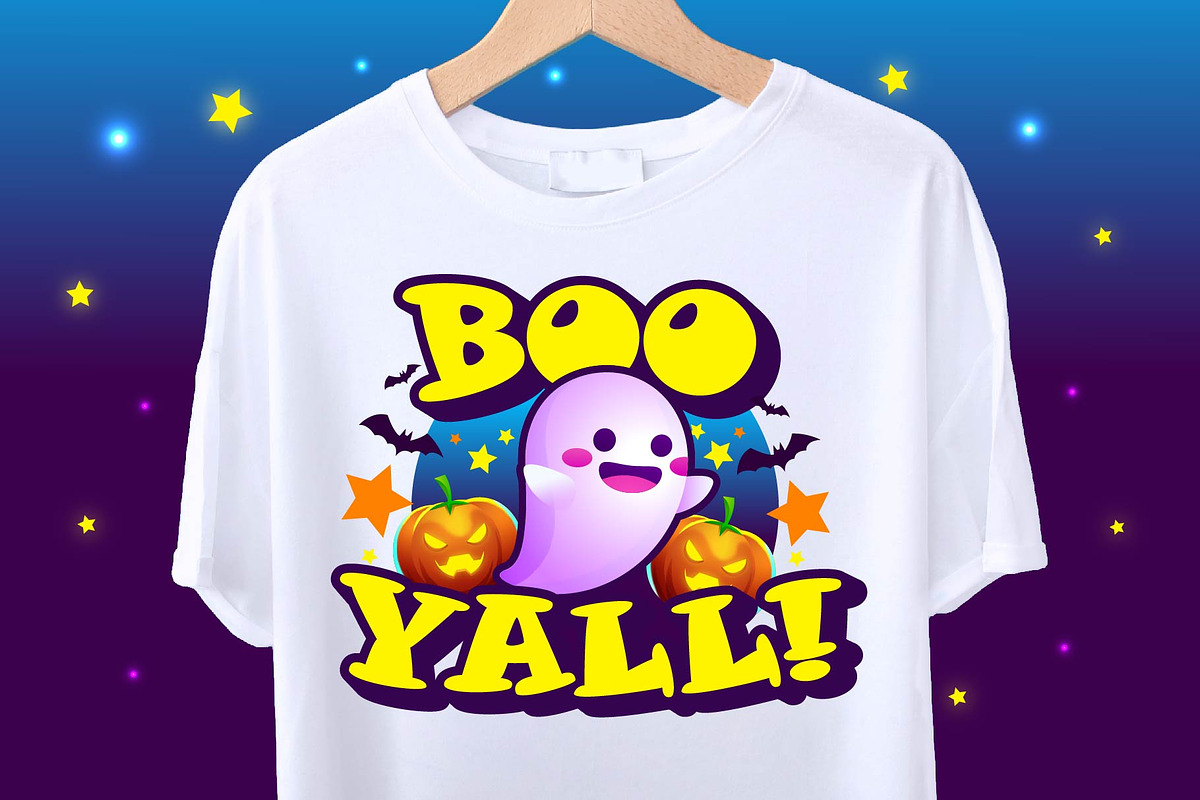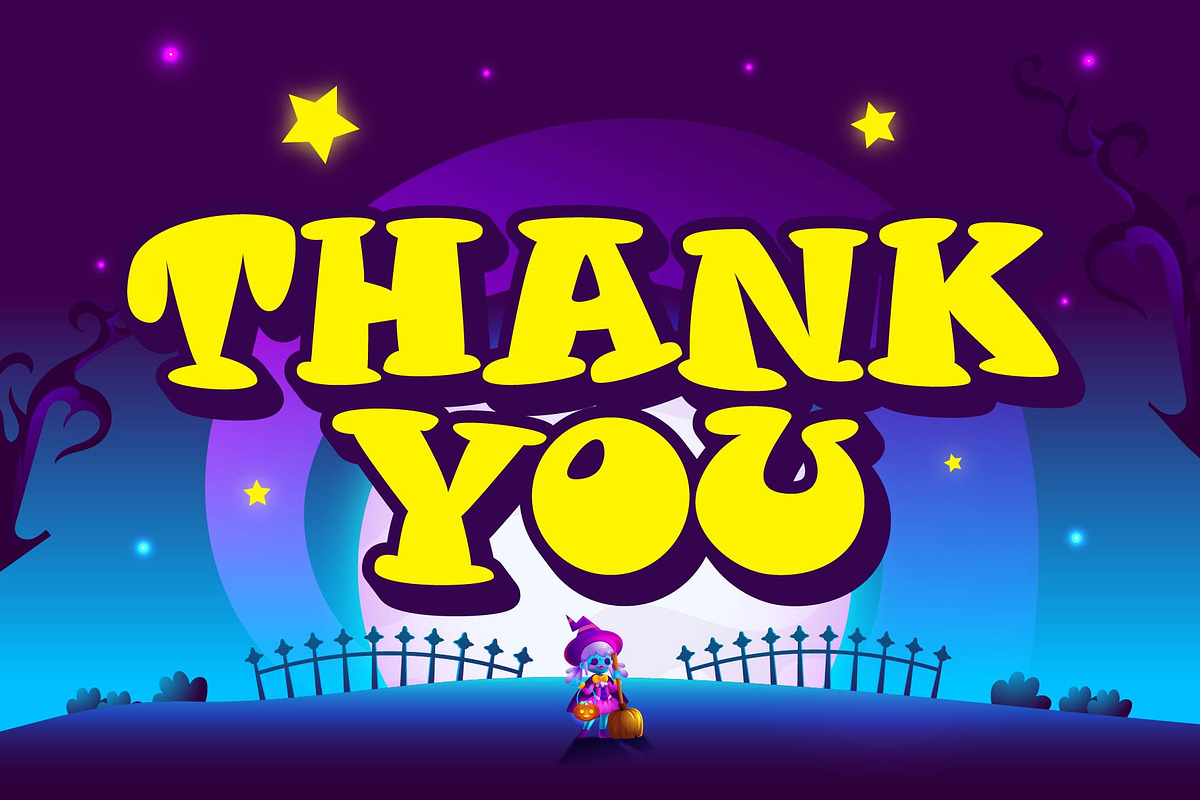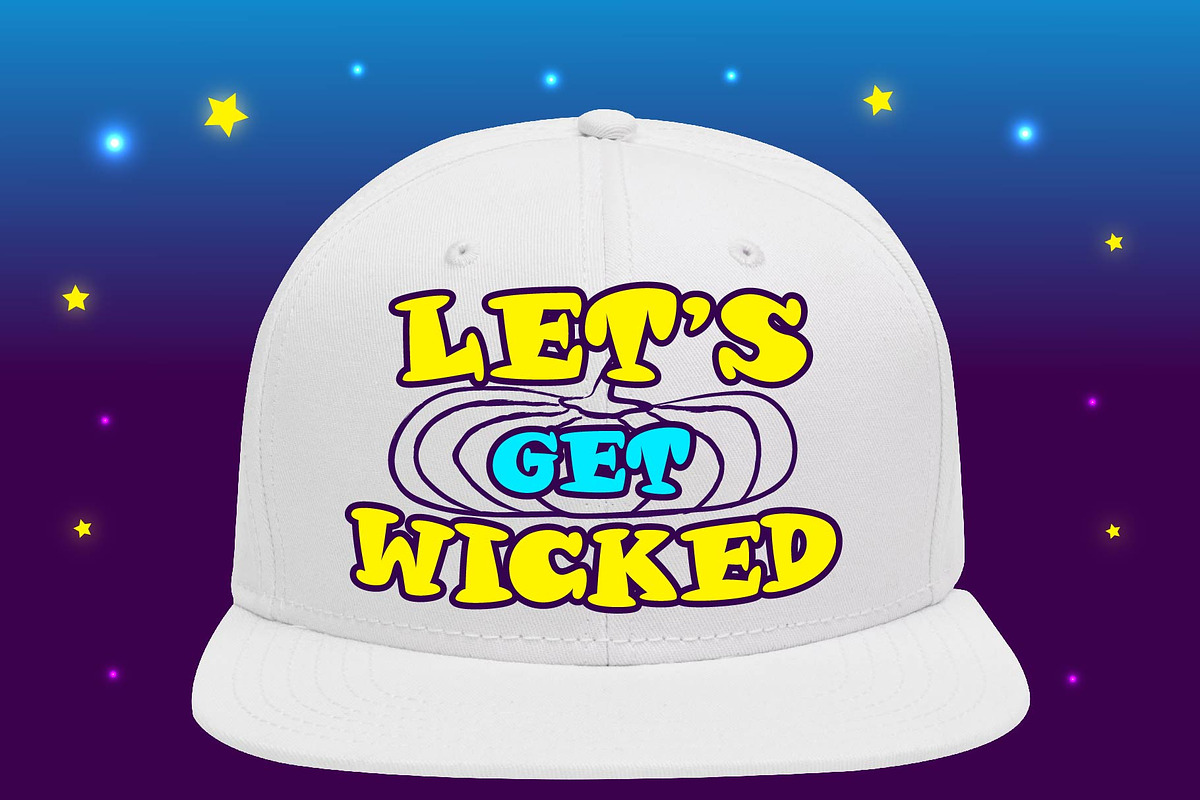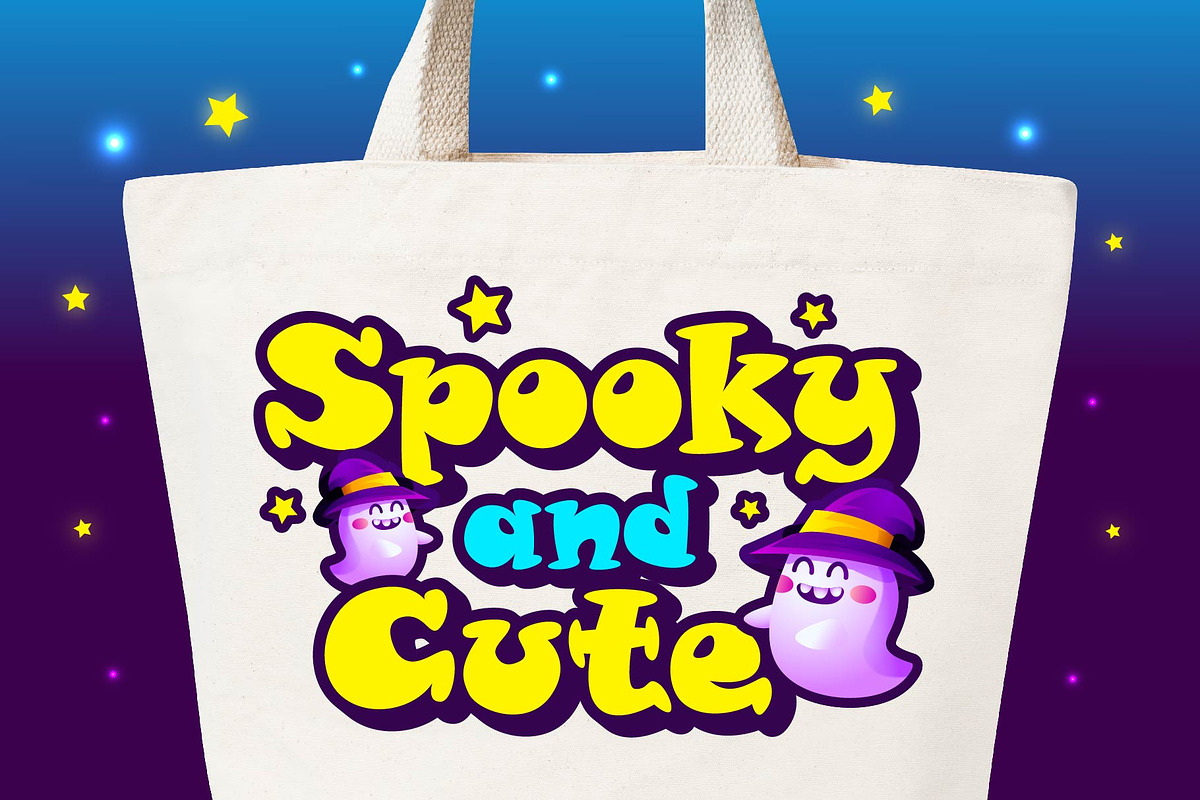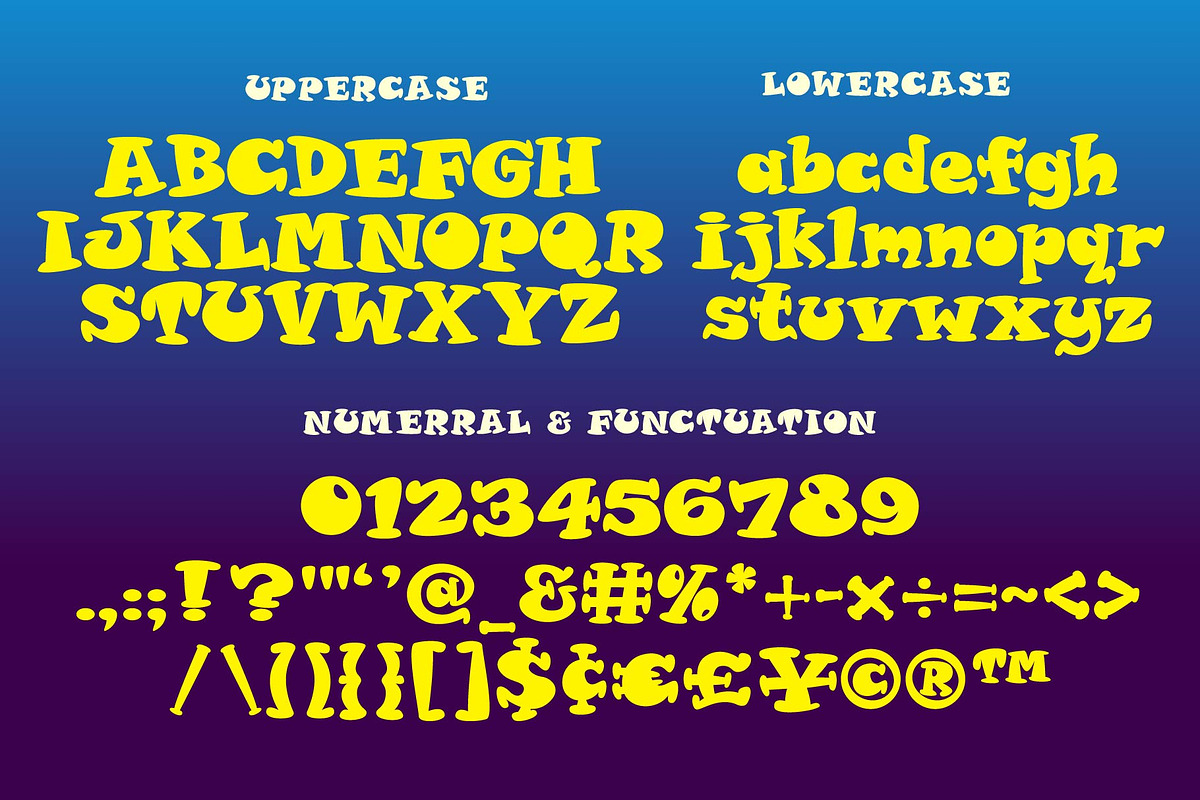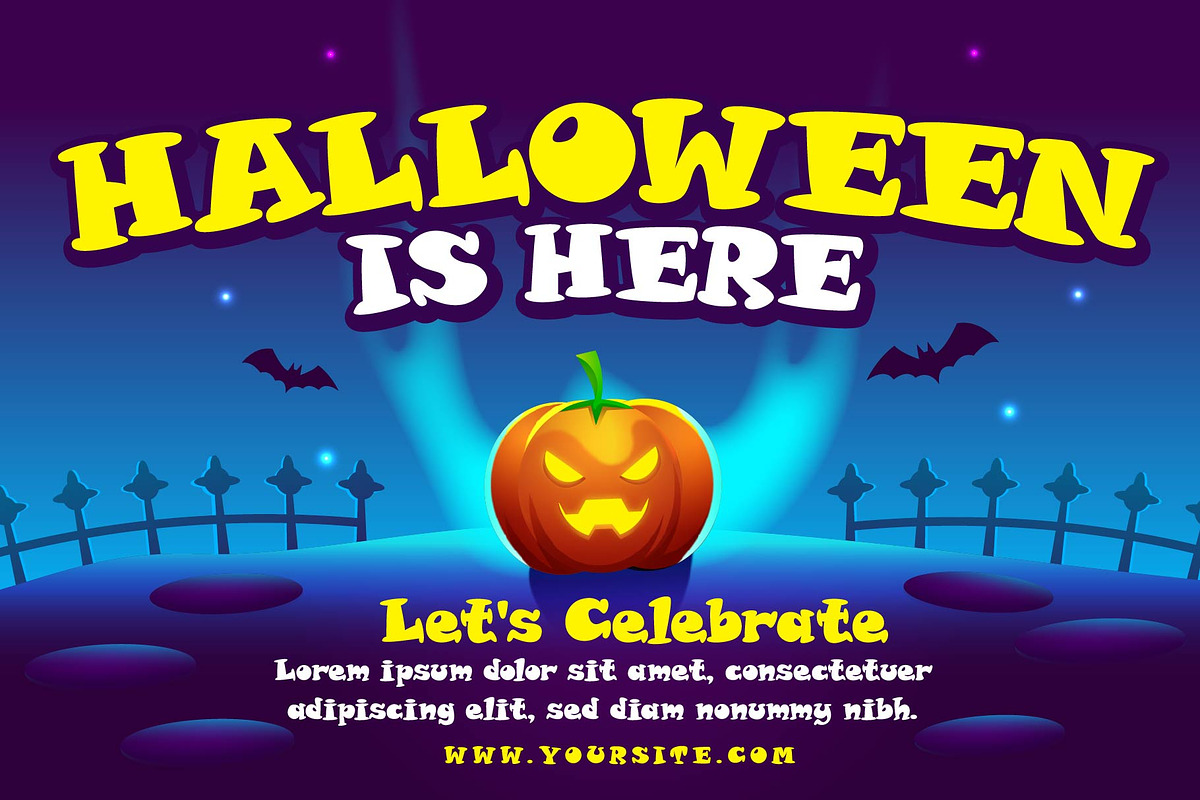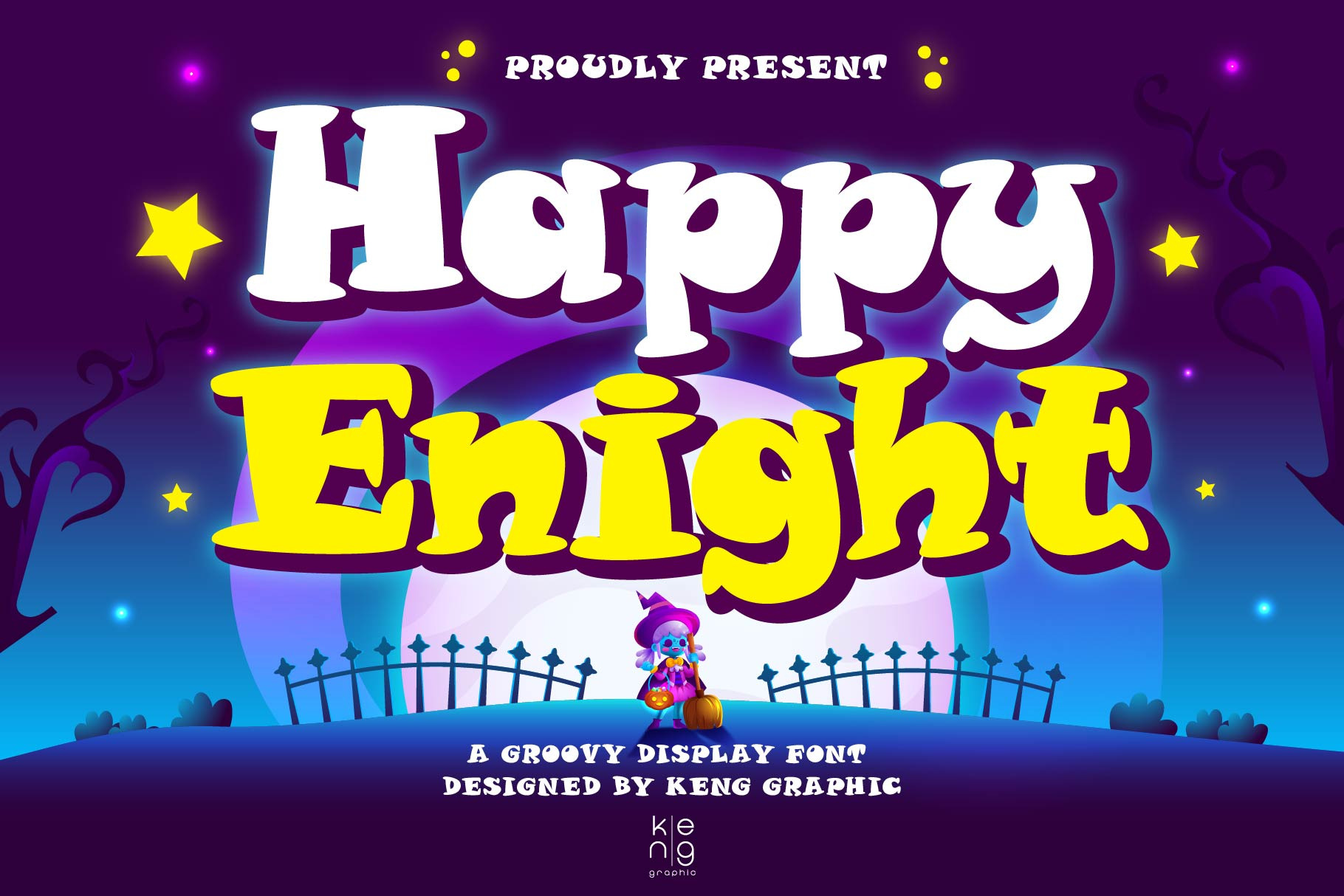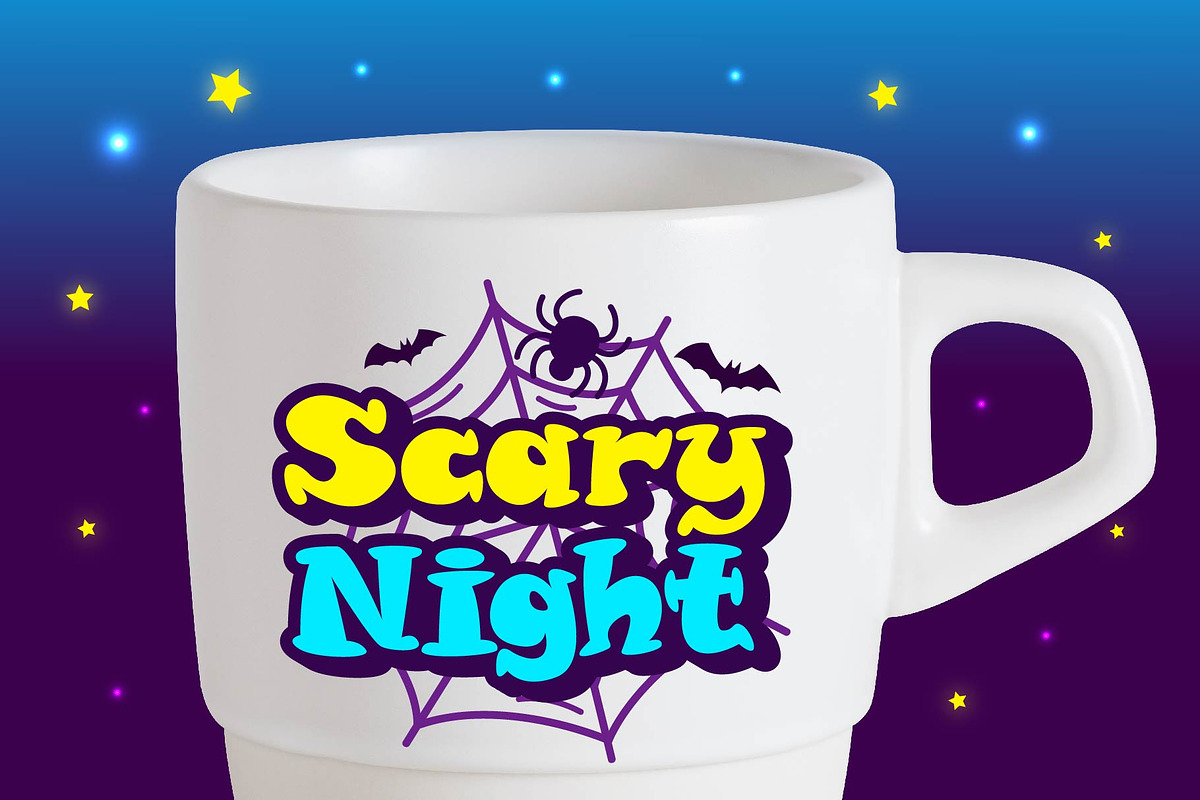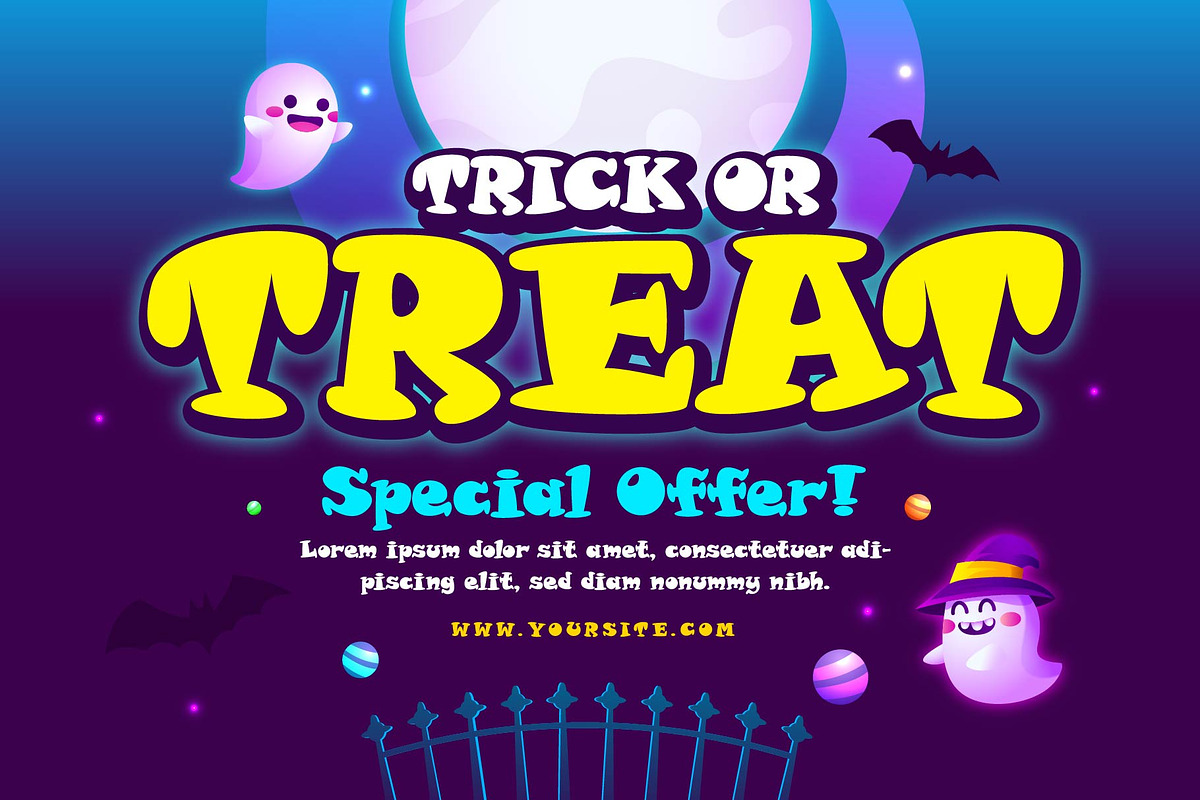
Happy Enight Font
Discover a world of creativity with the Happy Enight font!
This groovy display font captivates any design with its unique and bold style. Perfect for enhancing t-shirts, mugs, bags, caps, and everything in between, Happy Enight brings a playful and distinctive touch to all your artistic endeavors.
Infuse the charm of the exceptional Happy Enight font in all your creations and watch them transform into fantabulous pieces!